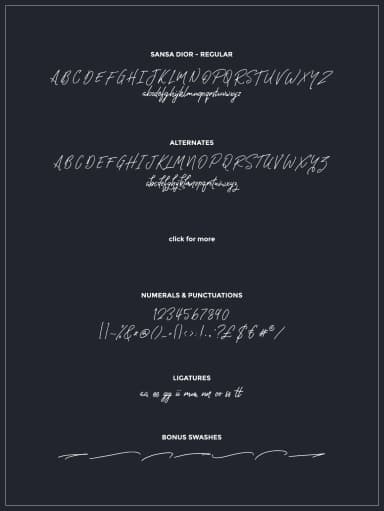
Sansa Dior by Hindia Studio is a flowing brush script rooted in authentic handwriting, capturing natural movement and genuine personality with every curve. The font brings an energetic, contemporary feel to any design project, seamlessly combining casual warmth with sophisticated visual appeal. Its organic letterforms translate real human character into digital form, making it an excellent choice for creating brand identities that feel authentic and relatable rather than corporate or manufactured.
This script excels in design contexts where personality and character matter most. Cosmetics and luxury skincare brands use it for packaging that conveys premium positioning while remaining approachable and inviting. Fashion designers and independent clothing labels employ it for logos and hang tags that command attention on the shelf. Social media content for lifestyle and wellness businesses benefits from its approachable elegance, while independent publishers have found significant success applying it to book covers and literary branding. The font's natural rhythm works particularly well for high-end product labeling, personalized stationery design, and artistic portfolio presentations.
Sansa Dior Font is a script font that shines as a display or heading face. Pair it with a clean sans-serif or serif font for body text β the contrast creates a clear hierarchy while the two styles stay balanced and easy to read.